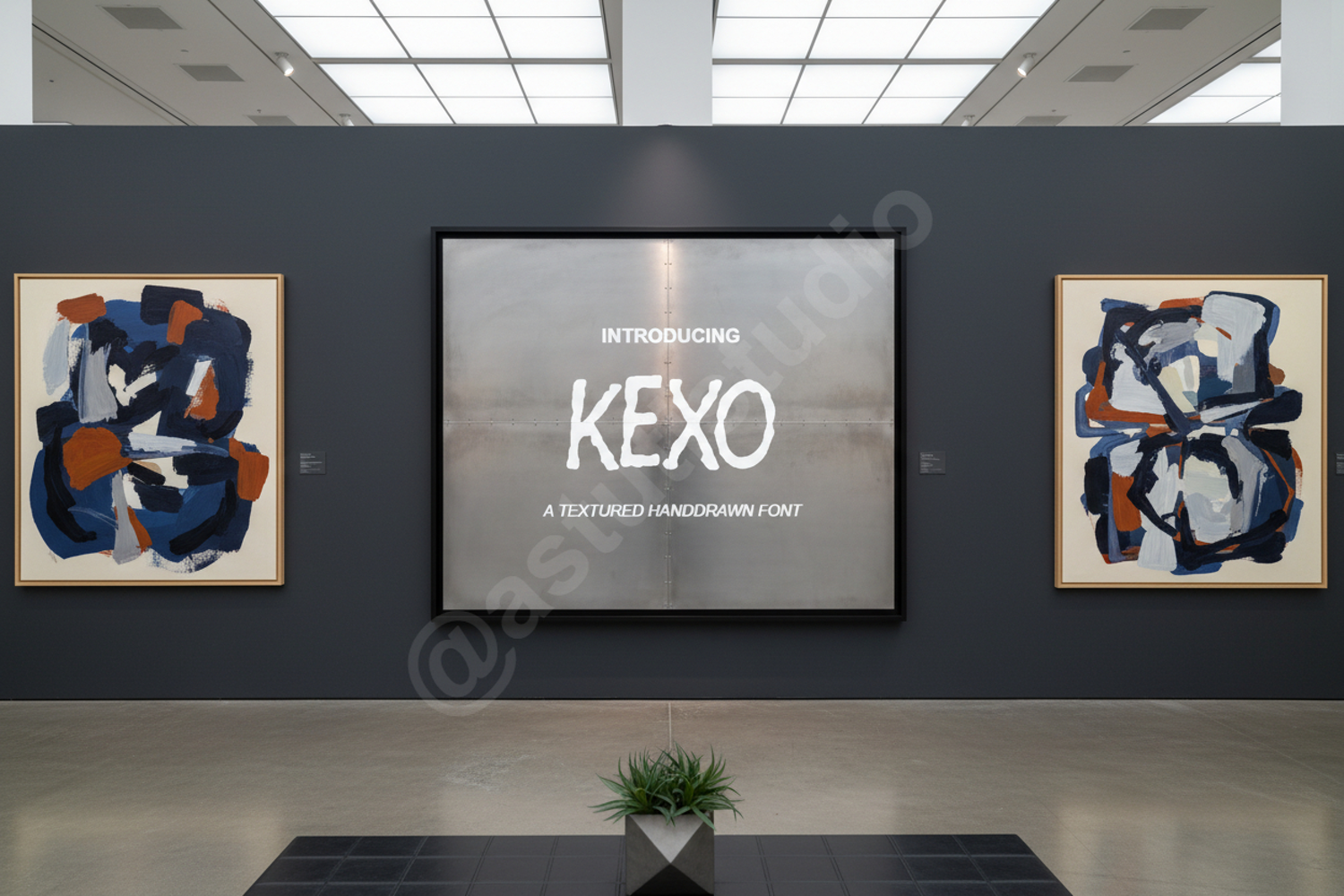
Kexo - Modern Geometric Sans-Serif
Kexo
Elevate your design projects with Kexo, a premium geometric sans-serif typeface that blends contemporary minimalism with high-end functionality. Meticulously crafted for clarity and impact, Kexo is designed to bring a sophisticated and professional edge to any creative work. Its clean lines and balanced proportions make it an essential tool for designers seeking versatility and style.
- Full character set including uppercase, lowercase, and numerals
- Comprehensive multilingual support for global accessibility
- High-End Branding and Identity: Create a memorable presence for modern startups and luxury brands.
- Editorial Design: Perfect for clean magazine layouts, body text, and striking headlines.
- Digital Marketing: Enhance your website headers, app interfaces, and social media graphics.
- Product Packaging: Deliver a premium feel to labels and box designs.
- Corporate Presentations: Ensure your message is delivered with professional clarity and modern flair.